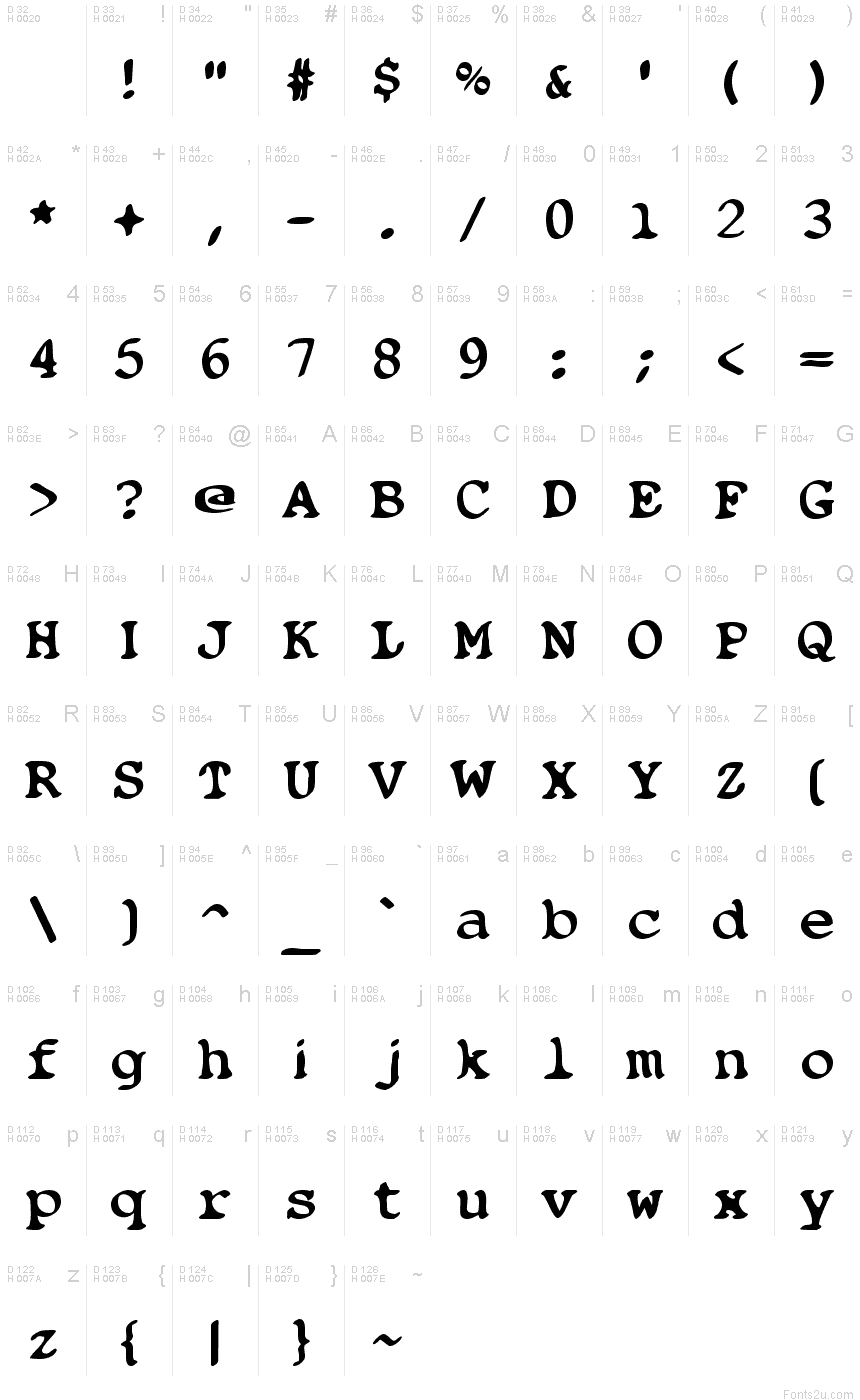
Blobfont G98
Blobfont G98 font by GemFonts is a free old-school display typeface with a wonderfully inky, blobby twist. Each letter feels like it’s been pulled from a vintage poster left to bleed just a little at the edges—chunky curves, softened corners, and playful bumps where you’d expect straight cuts. The result is a quirky, retro voice that still reads clearly, giving you that hand-done, slightly warped charm without sacrificing legibility.
Using Blobfont G98, headlines immediately gain character and a touch of nostalgic mischief, making this free font a natural fit for gig posters, zines, children’s book covers, retro branding, party invitations, and playful packaging. It shines when set large, where the irregular shapes and inky weight really show. Pair it with a clean, neutral sans serif for body copy to keep layouts balanced and let Blobfont G98 handle the personality.